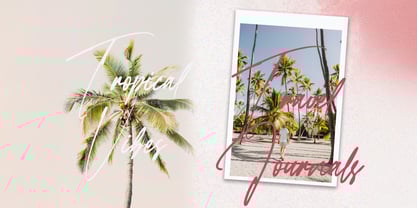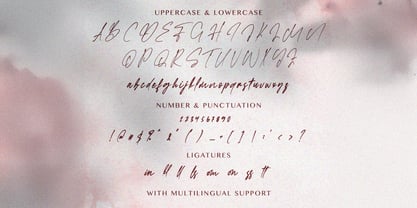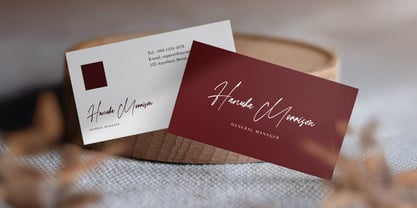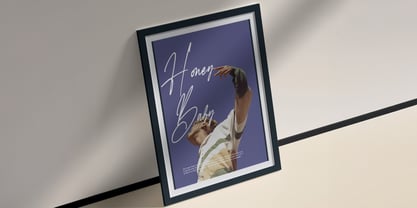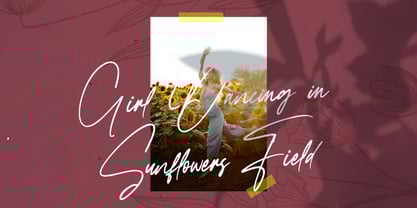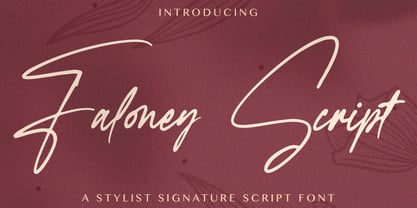
Faloney Script
by Stringlabs Creative Studio
The Faloney Script Font Family was designed by Virgiawan Listanto and published by Stringlabs Creative Studio. Faloney Script contains 1 styles. More about this family
Faloney Script is an elegant handwritten font that brings a touch of refined authenticity to your designs. Its graceful, flowing strokes and natural connections evoke genuine penmanship, perfect for invitations, personalized branding, beautiful quotes, or any project seeking a sophisticated and heartfelt charm.
Designers: Virgiawan Listanto
Current Foundry: Stringlabs Creative Studio